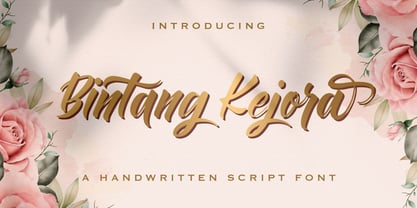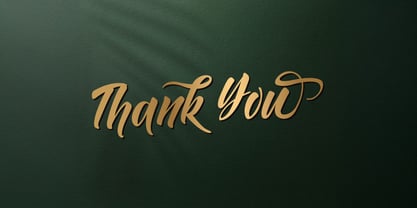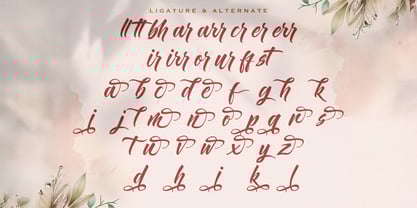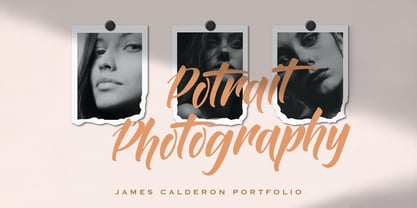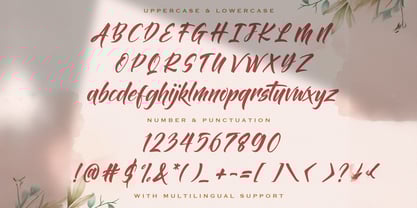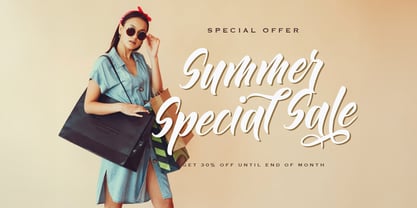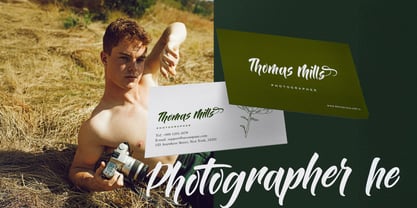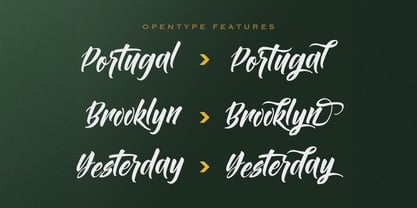
Bintang Kejora
by Stringlabs Creative Studio
The Bintang Kejora Font Family was designed by Virgiawan Listanto and published by Stringlabs Creative Studio. Bintang Kejora contains 1 styles.
Bintang Kejora is a dreamy handwritten font inspired by starlit skies and heartfelt expression. With its gentle curves and natural rhythm, this font brings warmth, sincerity, and a soft personal touch to any creative project. Perfect for romantic designs, branding, or emotional storytelling, Bintang Kejora shines with simplicity and elegance.
Designers: Virgiawan Listanto
Publisher: Stringlabs Creative Studio
Foundry: Stringlabs Creative Studio
Design Owner: Stringlabs Creative Studio